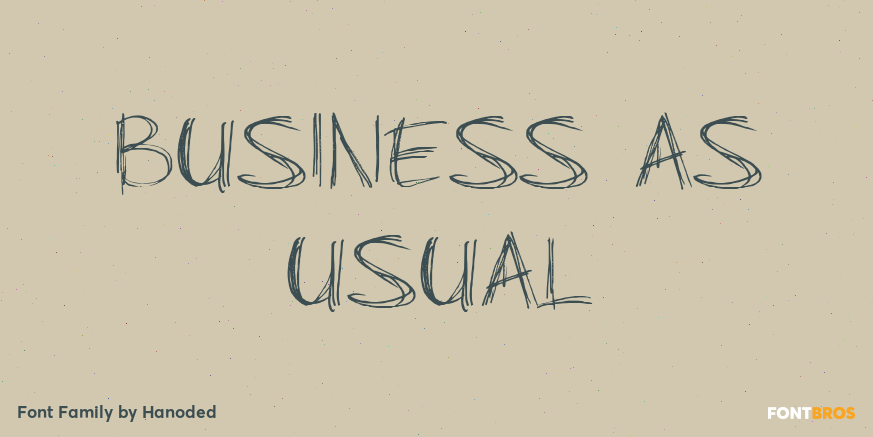
HomeFont BrosDistressedBusiness As Usual DistressedHandwritten Business As Usual FacebookXPinterestWhatsApp 1 of 1 About Business As Usual A scratchy, scribbly notebook font. Like someone doodled away at a meeting. Ideal for websites.  DOWNLOAD ON FONT BROSThis font is sold and delivered by Font Bros. Font Canyon may earn a commission if you buy through this link. People also explored Midday Font Owl Forest Font Montterule Font Fester Font Second Font Anandya Font Banitta Font Trio & Extras Mehtan Font Bratislava 342 0 TagsBusiness As Usual Font Previous articleBambooNext articleAustral Slab LEAVE A REPLY Cancel reply Comment: Please enter your comment! Name:* Please enter your name here Email:* You have entered an incorrect email address! Please enter your email address here Website: Save my name, email, and website in this browser for the next time I comment. Personal Use Free Lovely Girl Personal Use Free Read more about this font Screengem Personal Use Free Read more about this font Bettari Personal Use Free Read more about this font Font Slice Personal Use Free Read more about this font BLOG Transform Your Website: Elevate Your Typography with 7 Best Web Font Generators Are you ready to transform your website's typography from ordinary to extraordinary? Great! Today, we're diving into the world of web font generators, which... Free vs Paid Fonts: Why Investing in Premium Fonts Is Worth It Top 7 Google Fonts Alternatives for Faster and Privacy-Friendly Web Design (2025) Where to Buy American Fonts Online in 2024